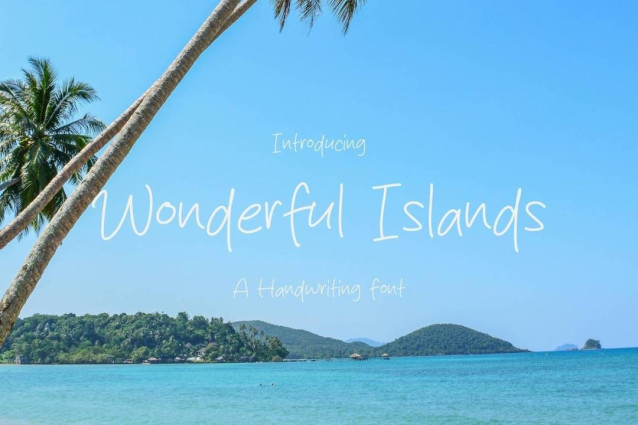
Wonderful Islands Font
Wonderful Islands Font is a simple and friendly handwritten font. Its natural and unique style makes it incredibly fitting to a large pool of designs. The only limit is your imagination!